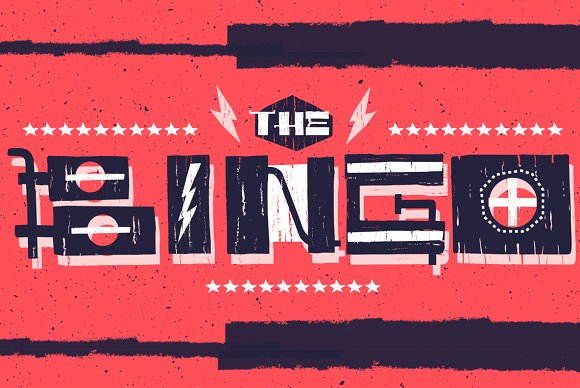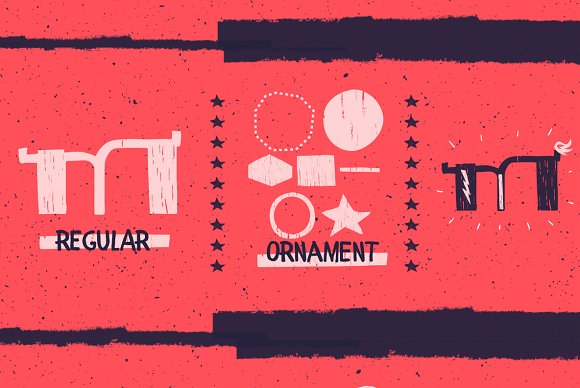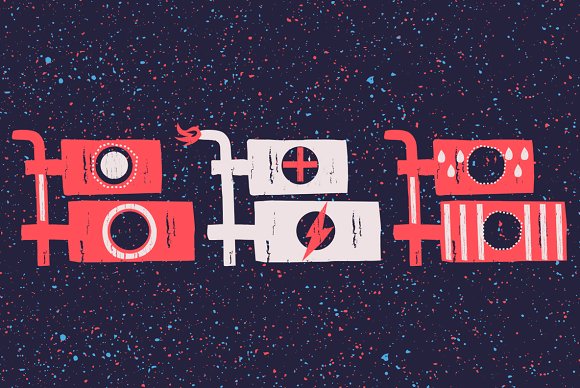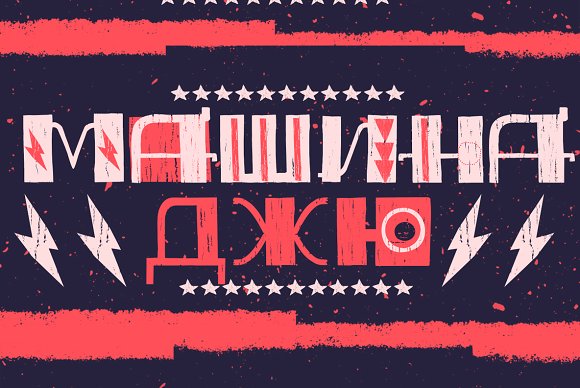
Discover the Unique Charm of Basural Font: A Masterpiece by Rodrigo Araya Salas
In the realm of typography, innovation and creativity are essential for designers and crafters to stay ahead of the curve. One such experimental typeface that has been making waves in the design community is Basural, created by Rodrigo Araya Salas from Rodrigo Typo. This distinctive font is inspired by a mix of wood and metal, offering a refreshing blend of textures and styles that can elevate any design project.
The Inspiration Behind Basural
Basural’s unique aesthetic is rooted in the combination of two natural materials: wood and metal. This blend of textures gives the font its distinctive character, allowing designers to add a touch of industrial chic to their creations. The wood-inspired elements bring a sense of warmth and organic feel, while the metal components inject a dose of modernity and edginess. This harmonious balance makes Basural an excellent choice for designers seeking to create dynamic and eye-catching designs.
Key Features of Basural Font
One of the standout features of Basural is its extensive set of ornaments. These decorative elements enable designers to create complex and visually appealing compositions that can be used in a wide range of applications, from branding and advertising to packaging and editorial design. The ornaments can be used to add a touch of elegance, create intricate patterns, or simply to add some visual interest to a design.
Another notable feature of Basural is its experimental nature. As an avant-garde typeface, it pushes the boundaries of traditional typography, offering a fresh perspective on font design. This makes it an attractive option for designers looking to try something new and innovative in their work.
Who Can Benefit from Basural Font?
Basural is an excellent choice for a variety of designers and crafters, including:
- Graphic Designers: Basural’s unique texture and ornamental features make it perfect for branding, logos, and advertising campaigns.
- Packaging Designers: The font’s wood and metal inspiration can add a touch of industrial chic to packaging designs, making them stand out on store shelves.
- Editorial Designers: Basural’s dynamic and eye-catching aesthetic makes it suitable for use in magazines, newspapers, and online publications.
- Crafters and Artisans: The font’s unique texture and ornamental features can be used in craft projects, such as hand-lettering, stenciling, and mixed media art.
How to Use Basural Font Effectively
To get the most out of Basural, designers can experiment with different combinations of the font’s various features. Here are a few tips:
- Mix and Match: Combine Basural with other fonts to create visually interesting contrast and hierarchy.
- Play with Ornaments: Use the font’s ornaments to add decorative elements and create intricate patterns.
- Experiment with Colors: Basural’s wood and metal inspiration lends itself well to earthy tones and metallic colors.
Basural font is a game-changer for designers and crafters looking to add a touch of innovation and creativity to their work. With its unique blend of wood and metal textures, extensive set of ornaments, and experimental nature, this typeface is sure to inspire and elevate any design project. Whether you’re a graphic designer, packaging designer, editorial designer, or crafter, Basural is definitely worth exploring.